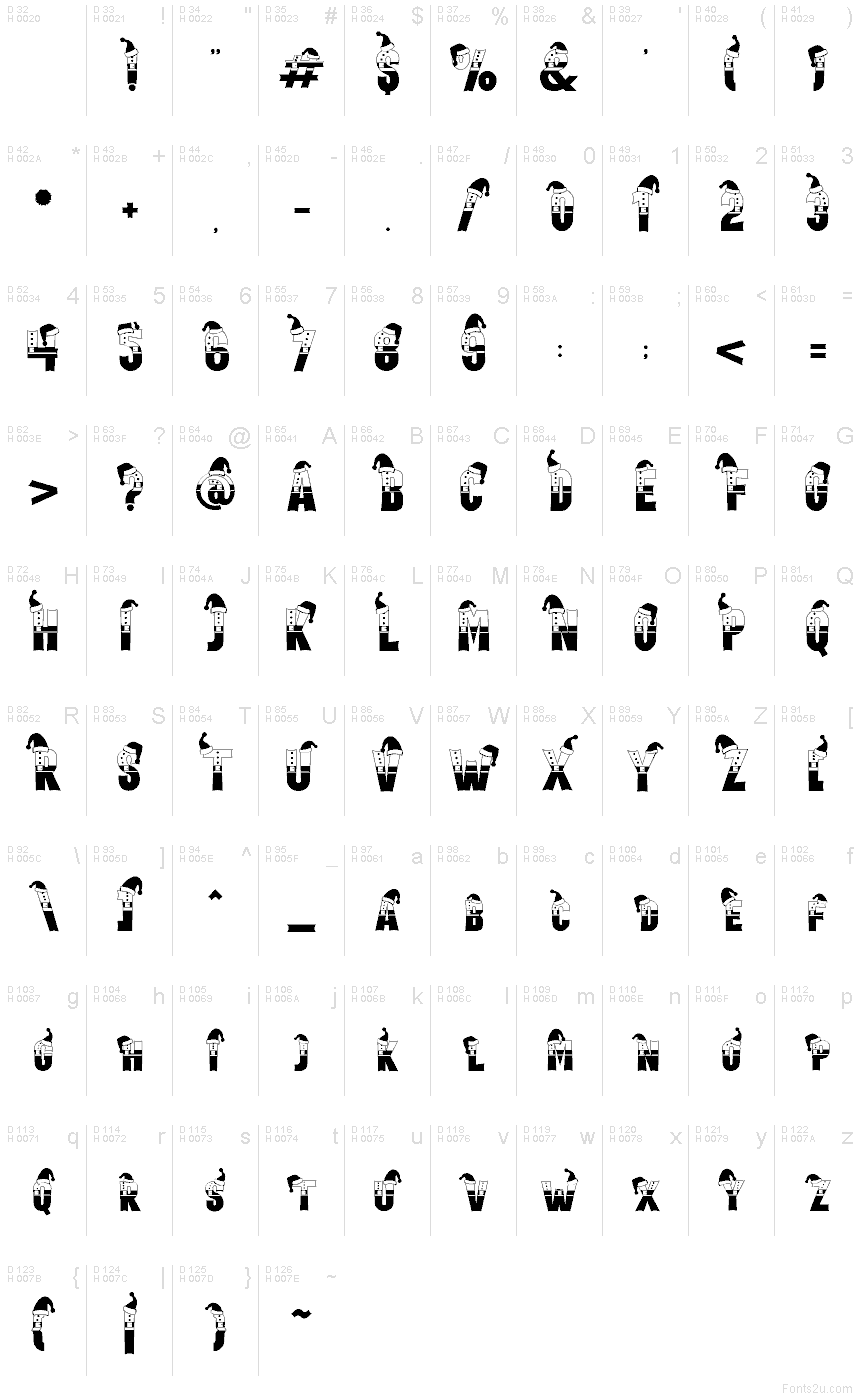
Holiday Harmony Santa
Holiday Harmony Santa font by PutraCetol Studio is a free holiday Christmas typeface that turns every word into a tiny festive scene. The bold, condensed letters from the Holiday Harmony family wear fluffy Santa hats and snow-tipped details, so your text instantly feels cozy and playful, like storefront windows dressed up for December. The chunky shapes keep everything readable, even when the letters are packed tightly together.
Using Holiday Harmony Santa, you can quickly dress up greeting cards, party invitations, gift tags, classroom printables, festive banners, and seasonal social media graphics. This free font shines at larger sizes where the hats and snowy accents can really be seen. Pair it with a simple rounded sans serif for body text, and let Holiday Harmony Santa handle the headlines and wordmarks that need maximum Christmas cheer.